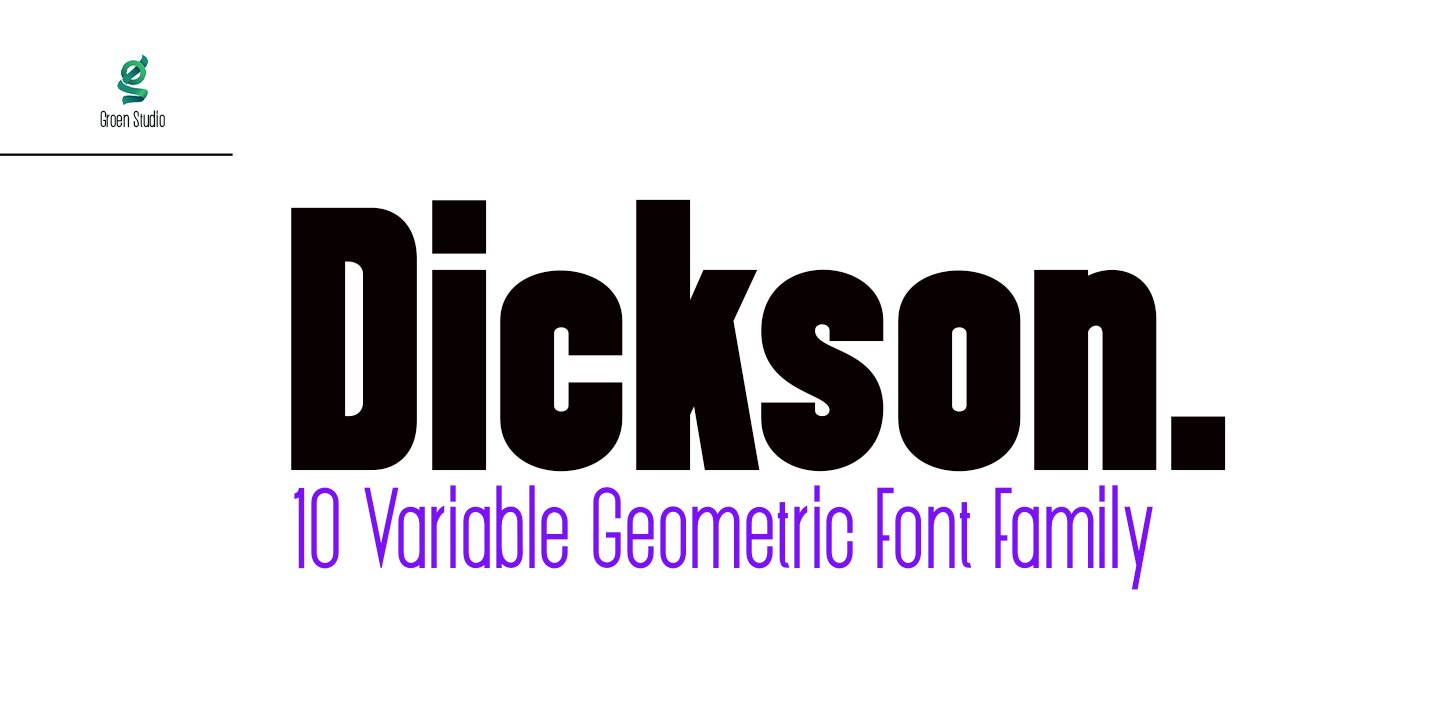
Dickson Font is perfect for distinguished corporate branding, professional business communications, executive presentation materials, formal documentation, prestigious law firm identities, established financial services, traditional consulting firms, and authoritative institutional designs. This commanding typeface excels in applications requiring professional gravitas and established credibility that conveys trustworthiness and business excellence across all corporate communications.
What makes Dickson Font exciting is its perfect embodiment of professional authority that instantly establishes credibility and business excellence through confidently structured letterforms. The font features robust character construction with authoritative presence and refined proportions that create immediate trust and professional recognition perfect for organizations requiring respected market positioning and established business credibility.
The Dickson Font family includes comprehensive weight options from regular to bold, plus professional italic variations, offering designers complete tools for creating authoritative business typography systems. The family provides consistent professional aesthetic with strategic weight progression for effective corporate hierarchy while maintaining the distinguished character that defines contemporary business excellence and institutional authority.
Dickson Font Free Download represents an exceptional choice for organizations seeking typography that commands professional respect and projects established business authority. Whether you're developing corporate identity systems, executive communications, professional service materials, or institutional marketing campaigns, this font provides the authoritative character needed for serious business applications and trusted brand positioning.
The masterfully engineered letterforms of Dickson Font ensure optimal legibility across all business applications while maximizing professional authority and credible appeal, making it ideal for corporate presentations, formal documentation, and executive communications. This versatile typeface combines business excellence with contemporary technical standards for outstanding performance in professional environments requiring maximum credibility and distinguished corporate presence.